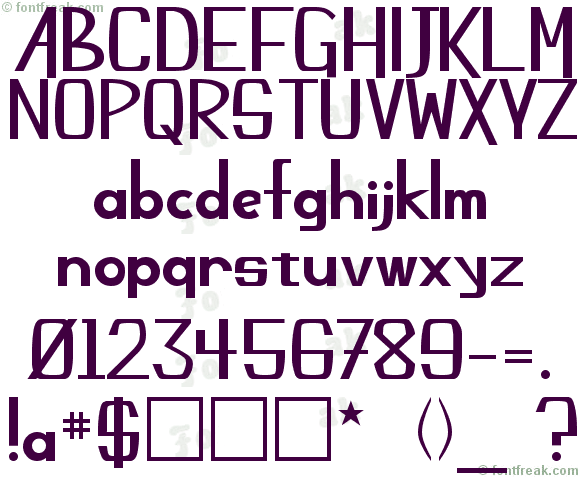
Champlin Regular
About Champlin
The Champlin font by Aprilskies is a distinctive display typeface that effortlessly combines elegance with a playful touch. This font features a unique style characterized by its bold, rounded letterforms and a smooth, flowing design that captures attention. With moderate stroke weight and minimal contrast, Champlin has a friendly appearance that makes it suitable for a variety of creative projects. The spacing between characters is well-balanced, enhancing readability while maintaining a sense of charm.
Champlin is an excellent choice for numerous applications, including wedding invitations, where its warm and inviting look can complement romantic themes. It also works wonderfully for restaurant menus, adding a touch of sophistication to the dining experience. For graphic designers looking to create eye-catching movie posters, Champlin's bold aesthetics can make titles stand out. Additionally, its captivating style is ideal for branding and logo design, perfect for small business owners wanting to convey a unique identity. Content creators will find Champlin an engaging option for social media graphics, ensuring their posts are both memorable and visually appealing.
What sets the Champlin font apart is its ability to blend playfulness with sophistication, making it a versatile choice for various design needs. Whether you're crafting a heartfelt invitation or designing a striking visual for a brand, the Champlin font free download provides the perfect solution for those seeking a distinctive and memorable typeface.